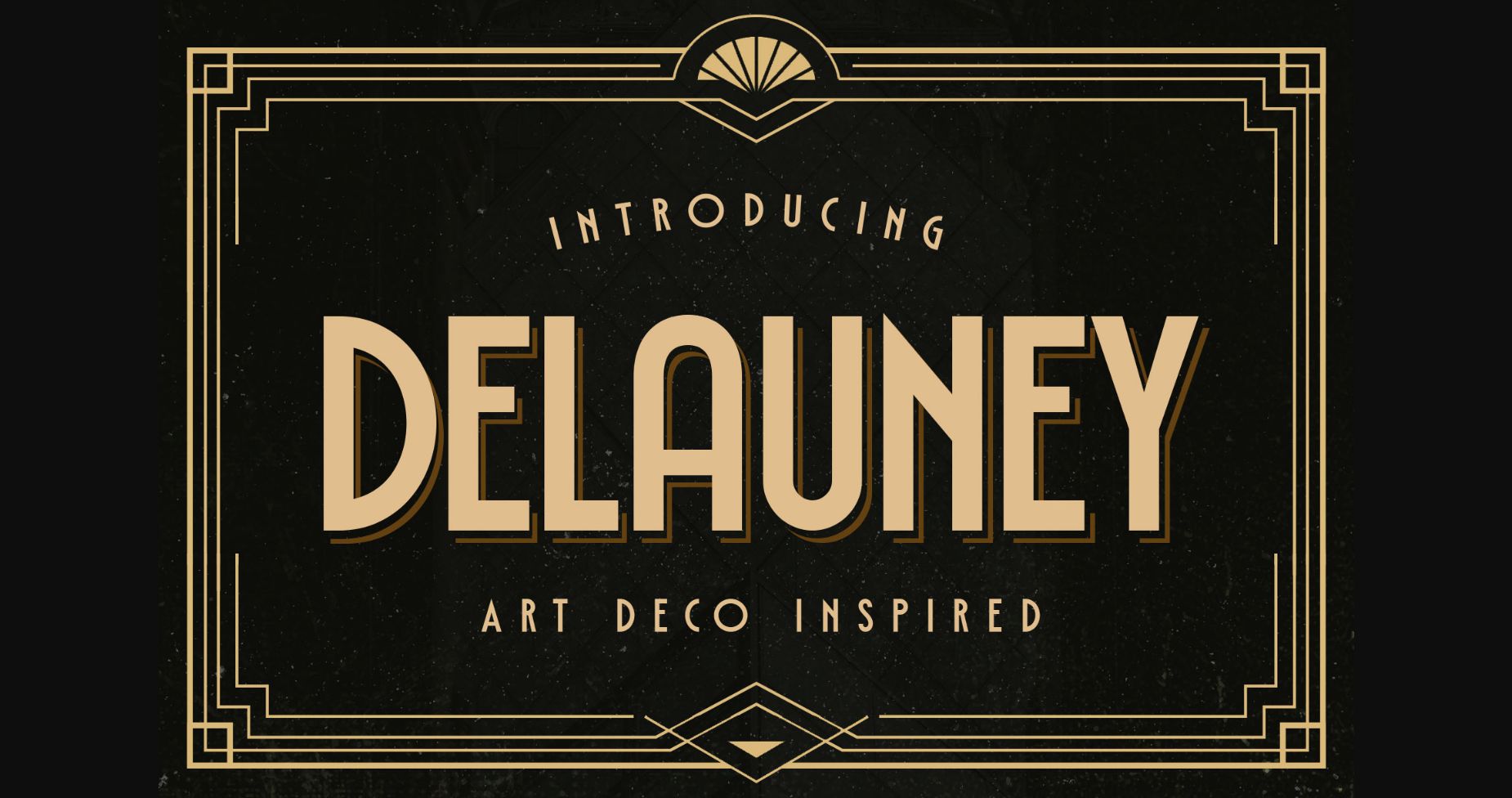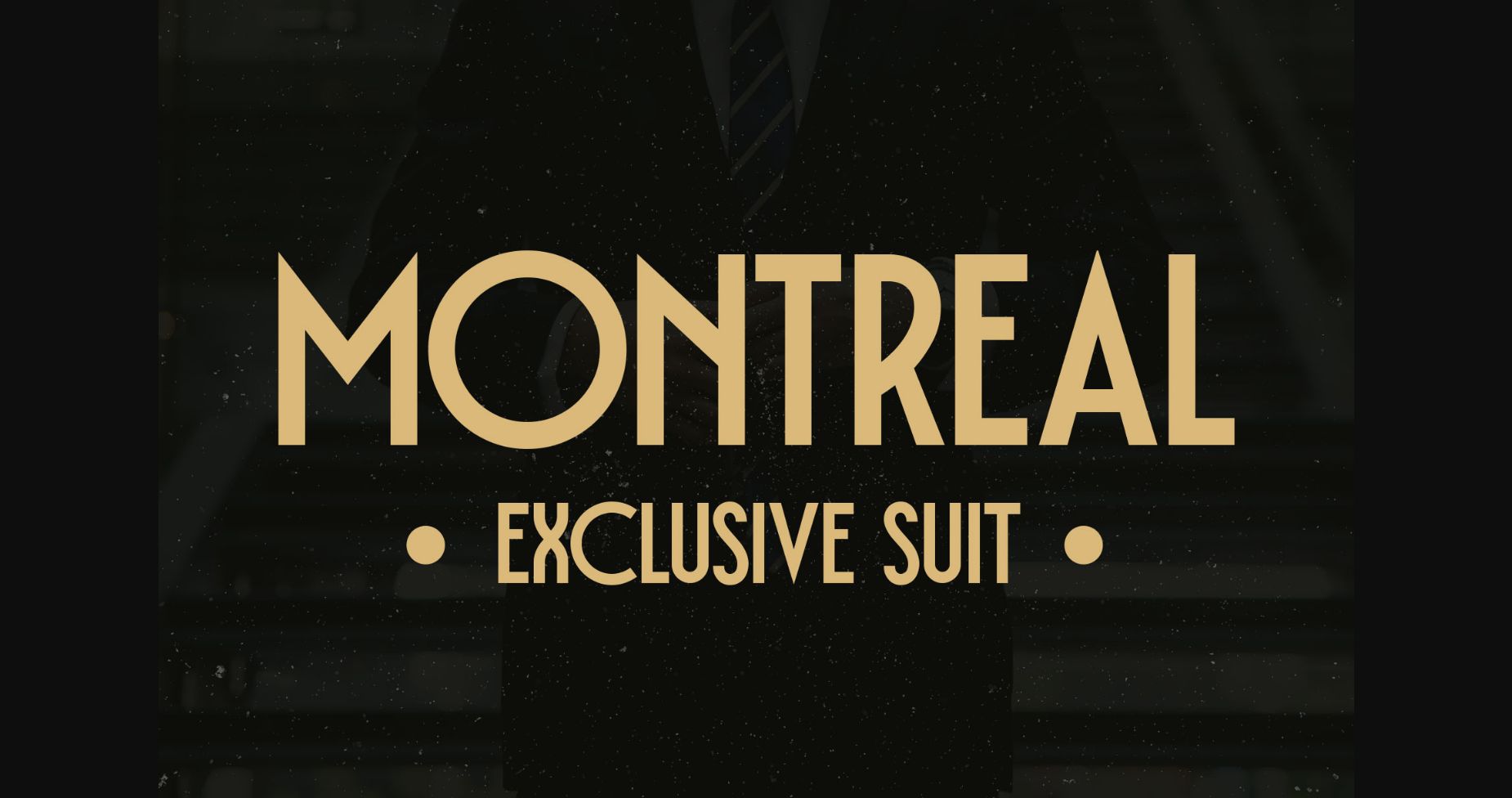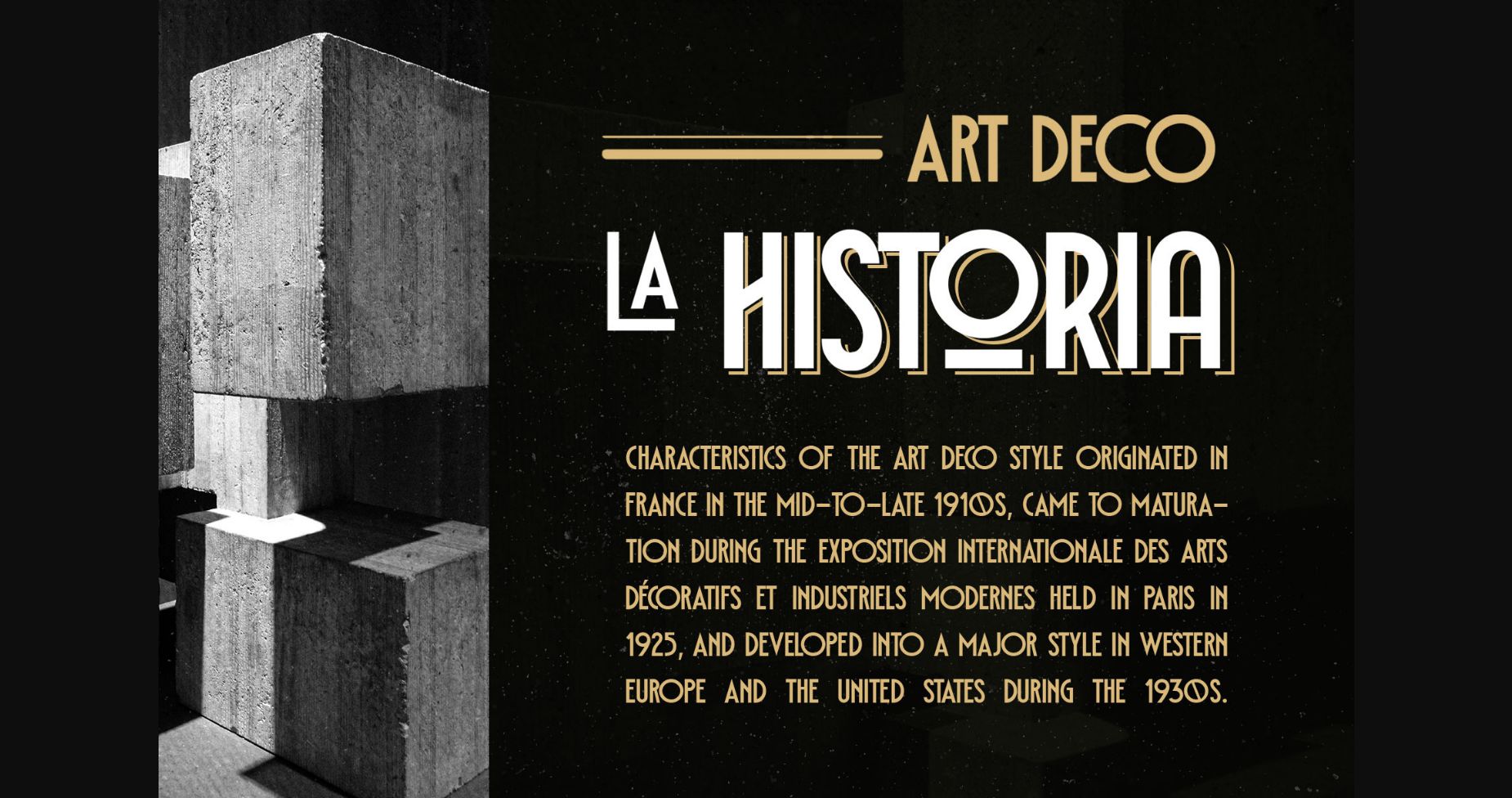
About Delauney Font
Delauney is a splendid sans serif font inspired by the Art Deco style from the 1920s. Delauney visualizes luxurious looks, elegance, and wealth. This font is an all-caps font designed with geometric shapes and firm strokes that give a clean and minimalistic look.